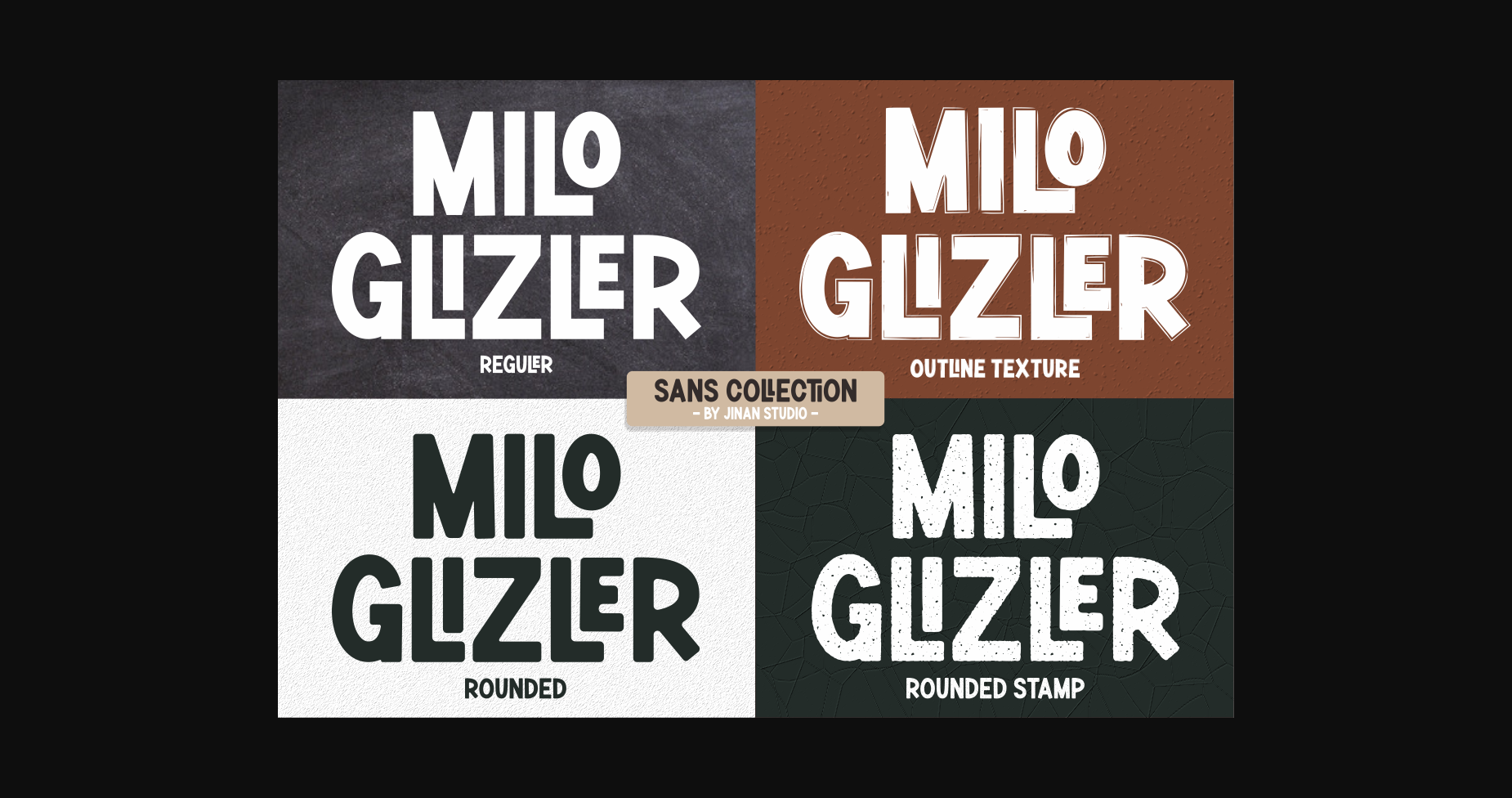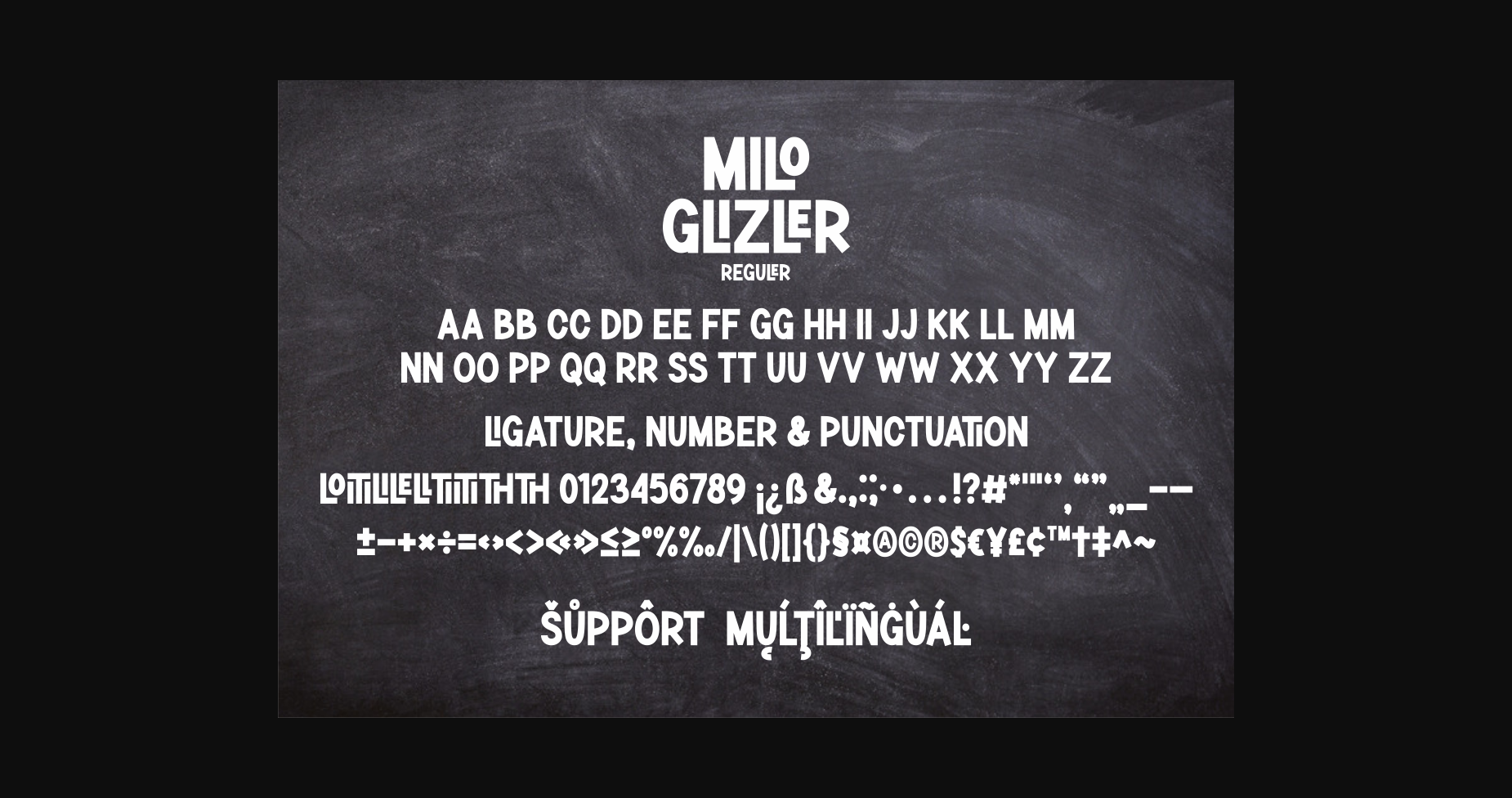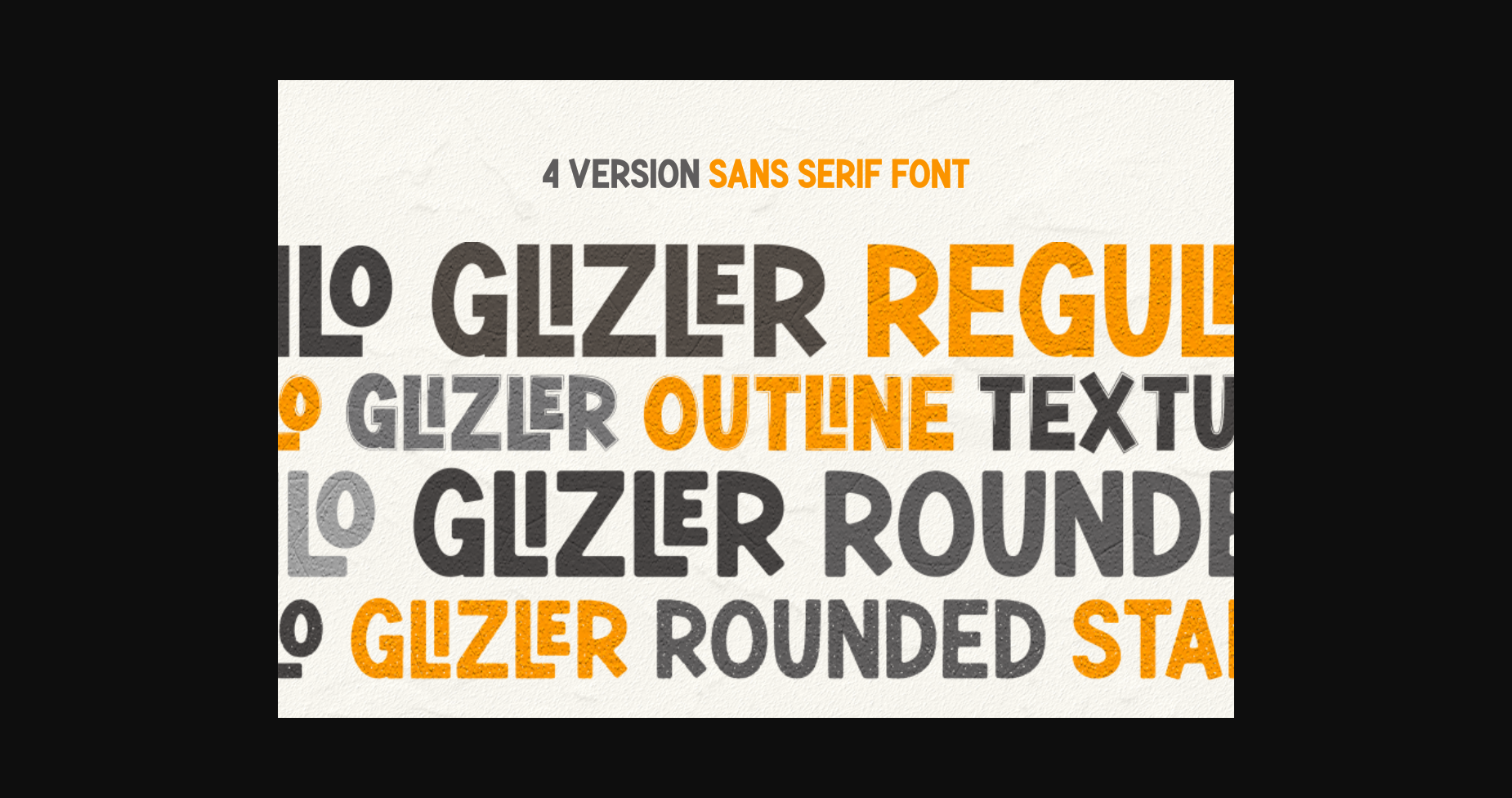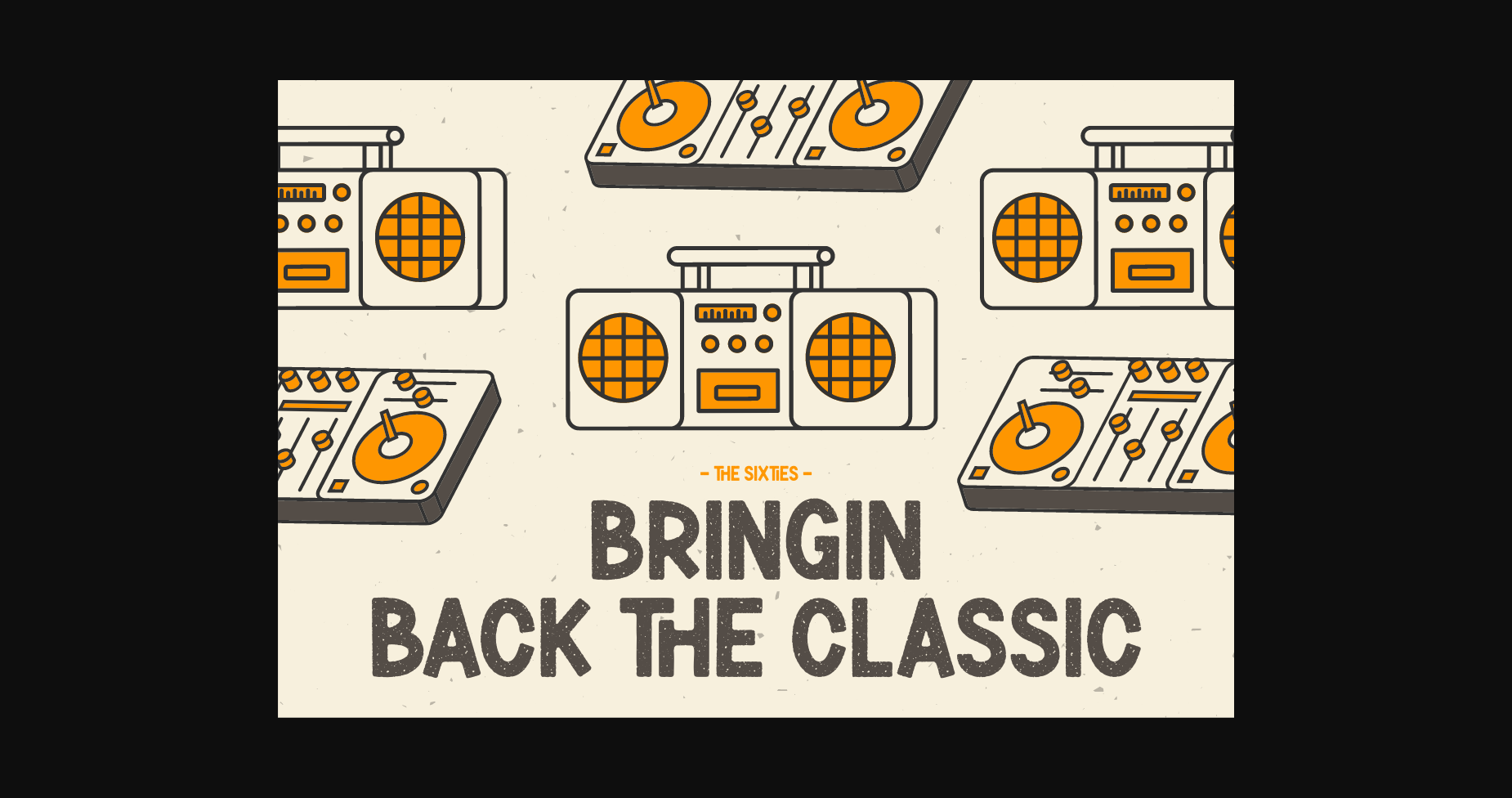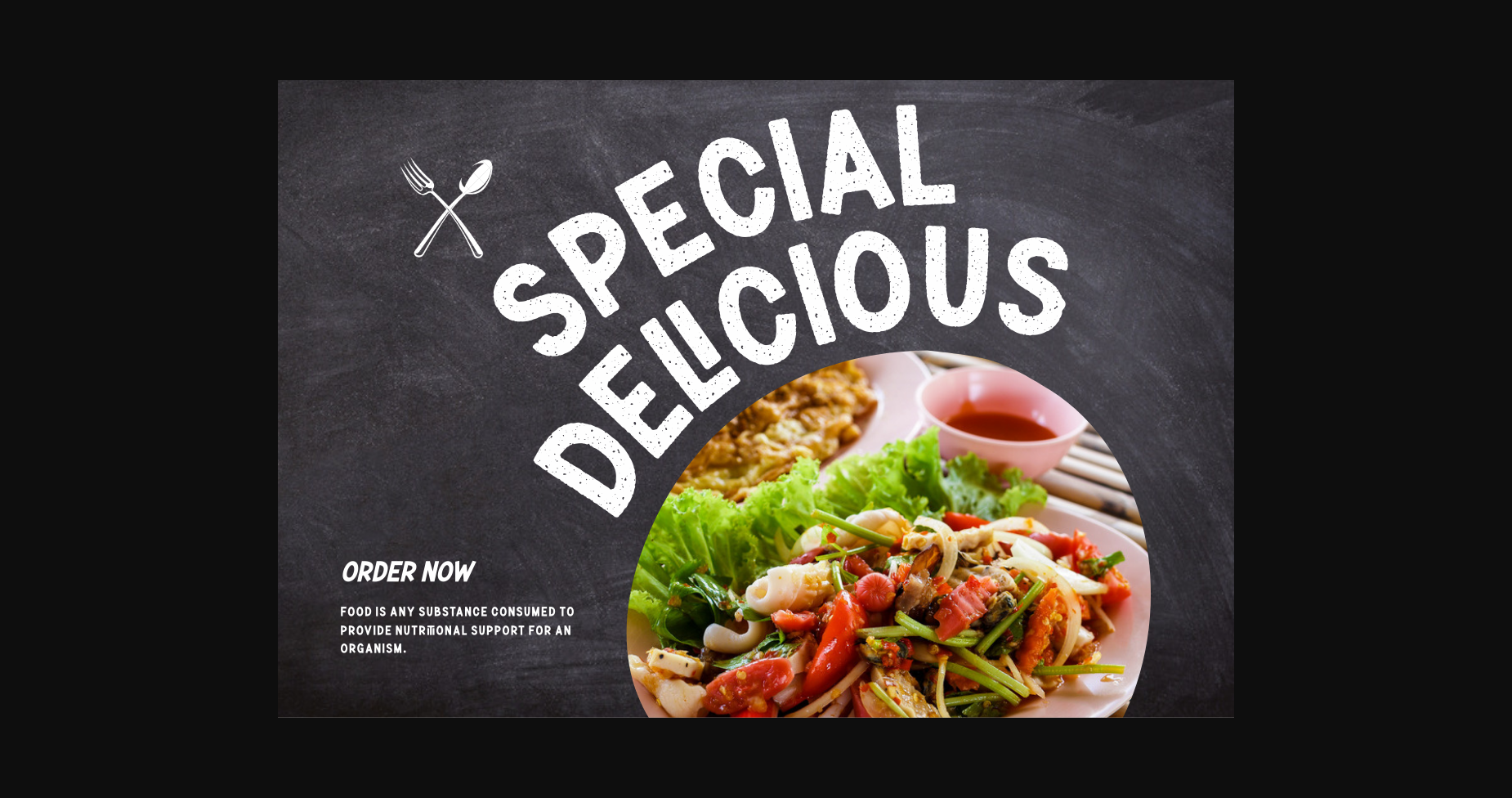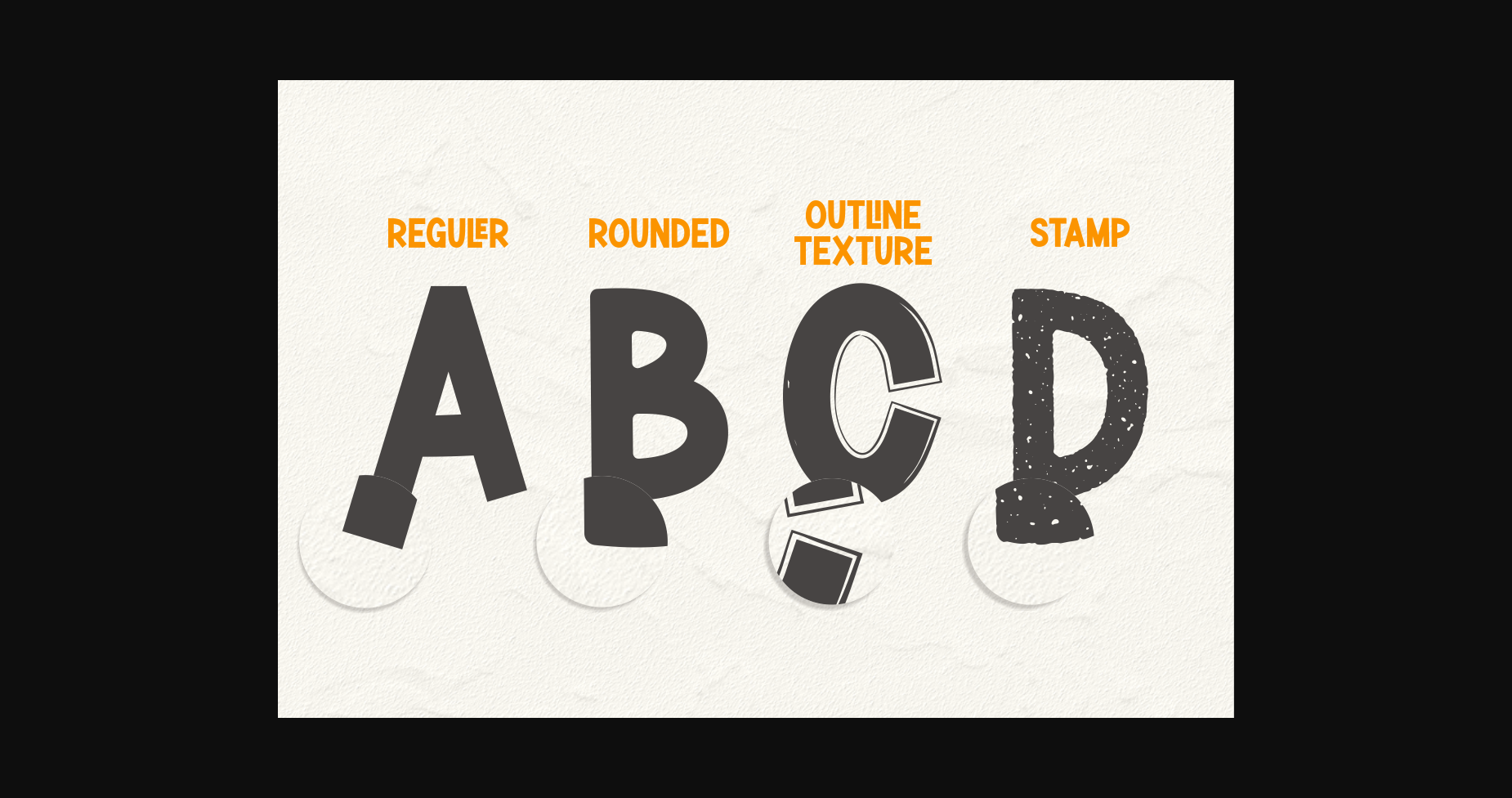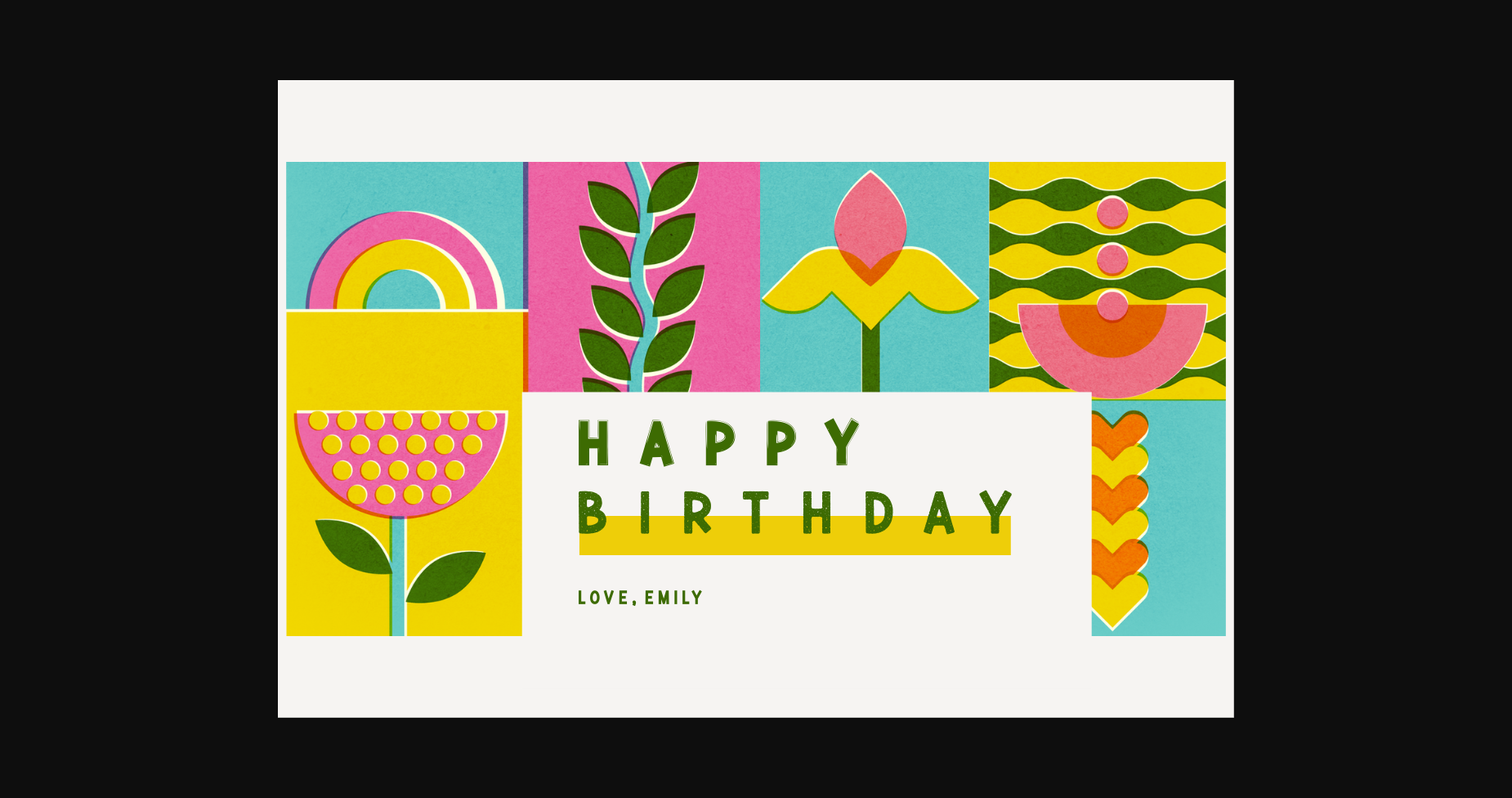
Milo Glizler Family Font
Milo Glizler Family is a stylish and authentic sans serif font, suitable for a wide spectrum of applications. From greeting cards to headlines, branding and packaging, this font will guarantee a happiness touch to each of your creations!
Milo Glizler is PUA encoded which means you can access all of the amazing glyphs and ligatures with ease!